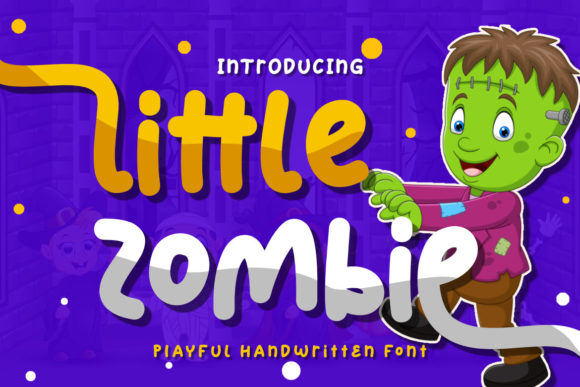
Unleash the captivating charm of Little Zombie, the font that embodies the spirit of fun, quirkiness, and authenticity. With its captivating curves and playful edges, this enchanting display font will transform your creative visions into extraordinary standouts.
Step into a world where fonts come alive, where every stroke tells a tale of playful mischief and carefree vibes. Little Zombie is more than just a font; it's a gateway to a realm of boundless creativity, where the ordinary becomes extraordinary.
Crafted by the masters at Typerex, Little Zombie is a display font designed to ignite the spark of imagination. Its carefully crafted glyphs dance across the page, creating a mesmerizing visual symphony that captivates and enchants. Whether you're crafting eye-catching headlines, designing captivating posters, or adding a touch of whimsy to your social media campaigns, Little Zombie is your ultimate creative companion.
But what truly sets Little Zombie apart is its versatility. It's a font that adapts to your every creative need, effortlessly blending into a myriad of design styles. From playful and quirky to elegant and sophisticated, Little Zombie seamlessly conforms to your vision, adding a touch of enchantment to every project.
Indulge in the boundless possibilities of Little Zombie, and let your creativity soar. Embrace the font that ignites your imagination and captivates your audience. Little Zombie is not just a font; it's a key to unlocking a world of creative wonders.